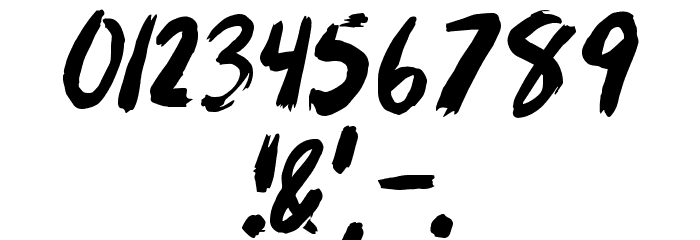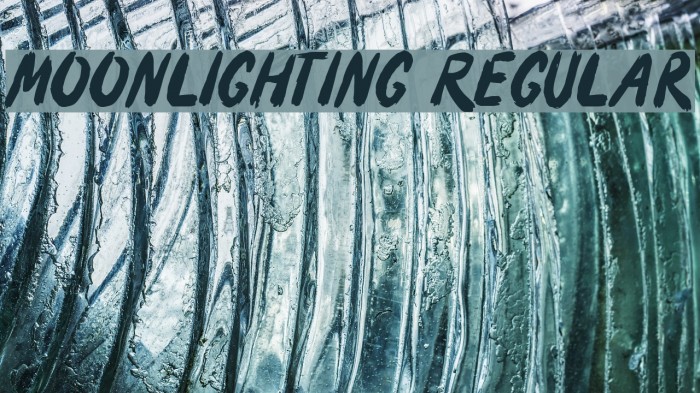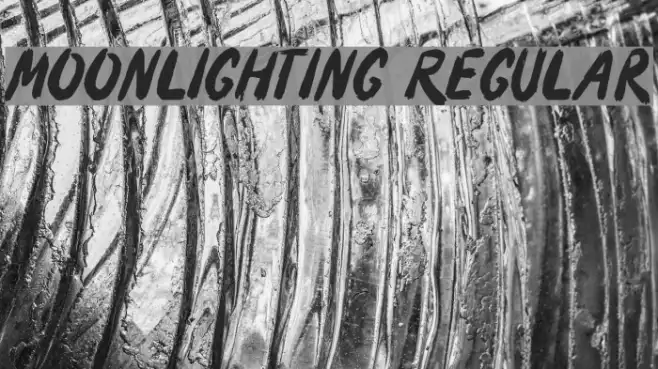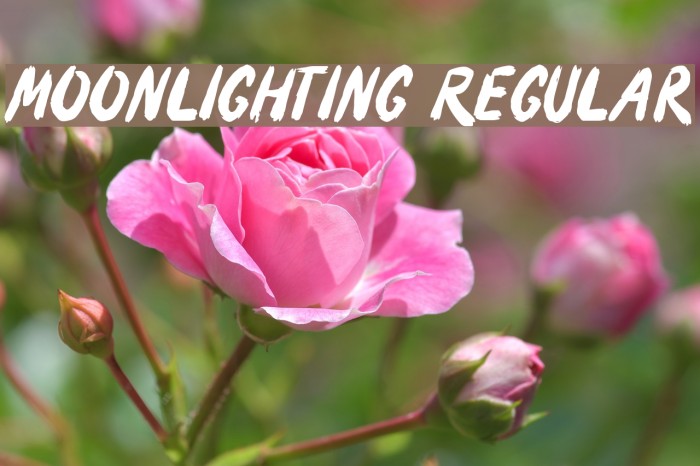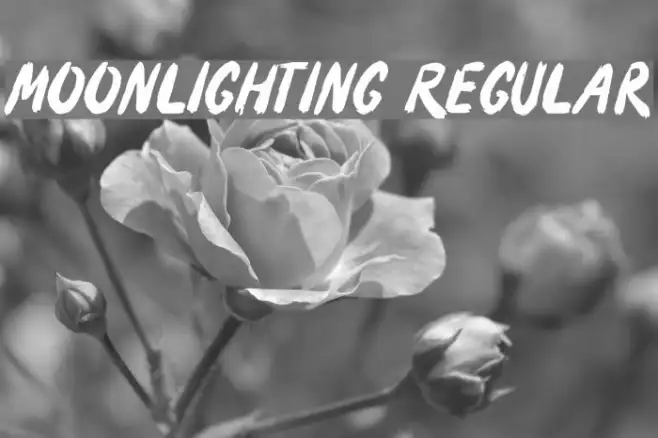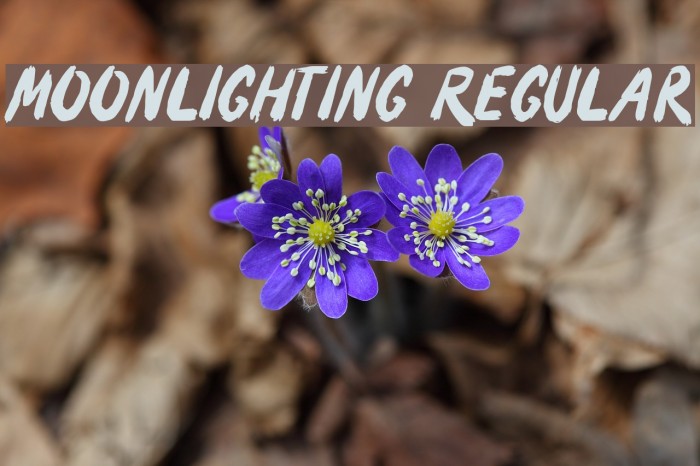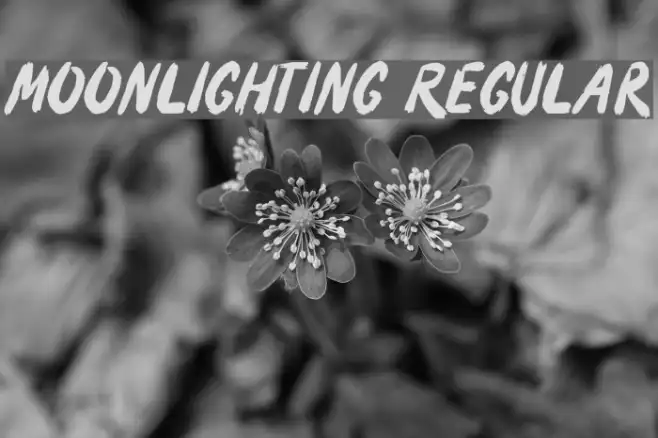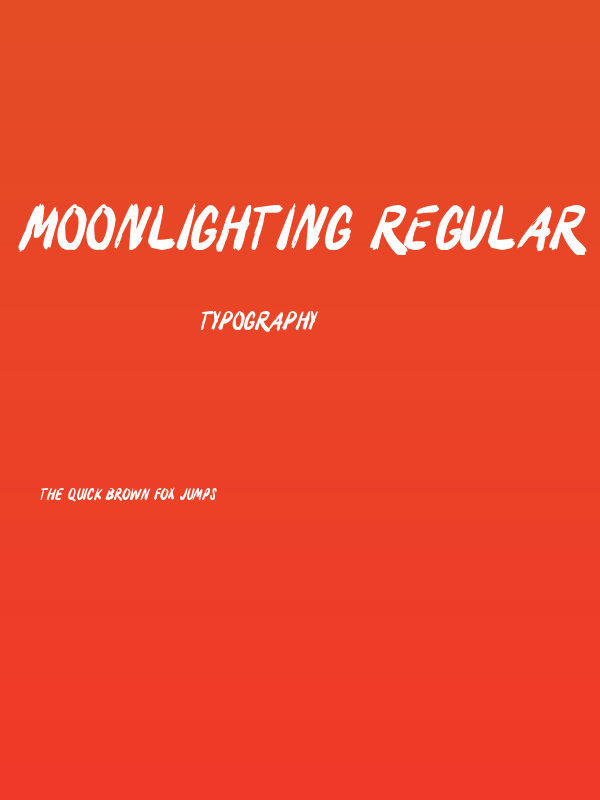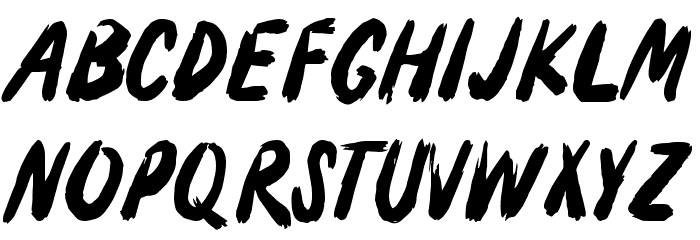
Moonlighting Regular Font
Moonlighting Regular Description
This font exudes a bold and energetic style, characterized by its brush-like strokes that give it a dynamic and hand-painted appearance. The letters are slightly slanted, adding a sense of movement and fluidity. The uppercase and lowercase letters maintain a consistent style, with thick strokes and slightly irregular edges that enhance its artistic flair. The numbers and special characters follow the same design principles, ensuring a cohesive look across all elements. This font is perfect for projects that require a touch of creativity and expressiveness.
| Proposed Projects | Ideal for posters, branding, artistic projects, and any design requiring a creative and expressive touch. |